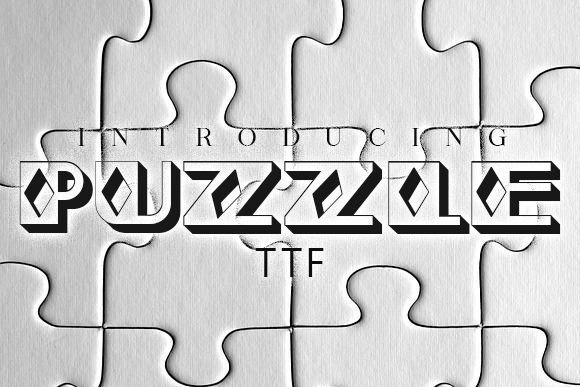
Feast your eyes on Puzzle Font, a showstopping decorative typeface that exudes elegance and sophistication. Crafted by the visionary vladimirnikolic, this font family is a true gem, designed to elevate your creative projects to new heights.
With its sharp corners and striking presence, Puzzle Font is the perfect choice for creating wedding invitations that leave a lasting impression. Its unique aesthetic adds a touch of charm and personality to your special day, making your invitations truly unforgettable.
Step into a world of endless possibilities with Puzzle Font. Its versatility knows no bounds, making it an ideal choice for a wide range of applications. From flyers and posters that demand attention to captivating logos that leave a lasting impact, Puzzle Font is your go-to font for making a bold statement.
Unleash your creativity and let Puzzle Font guide you to design masterpieces. Its captivating characters and distinct style will transform your projects into visually stunning expressions of art. Take advantage of this opportunity to make a bold statement and leave a lasting impression.